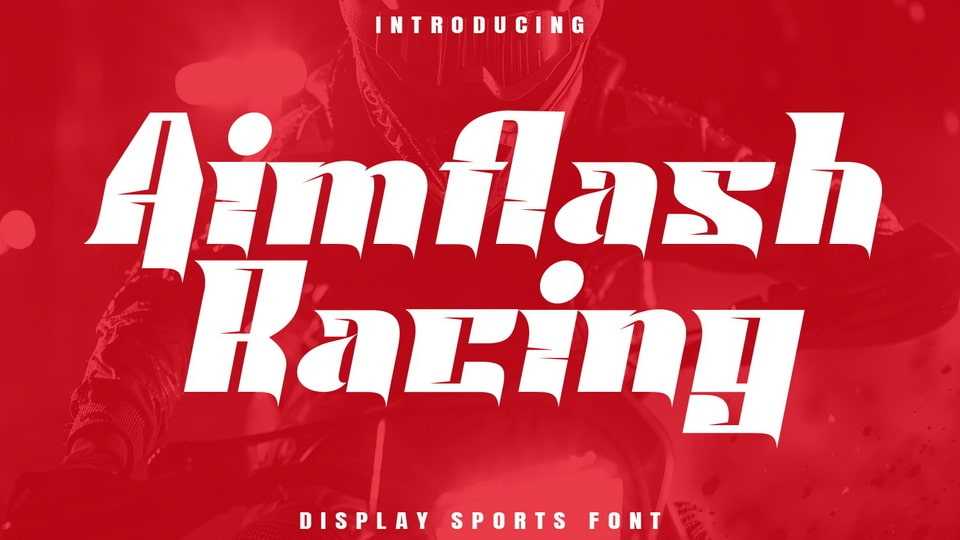
Download Aimflash font, a bold and dynamic display typeface designed to bring speed, power, and energy to your designs. Inspired by the world of motorsports, Aimflash features sharp angles, fast lines.
Designer: Rvandtype Studio